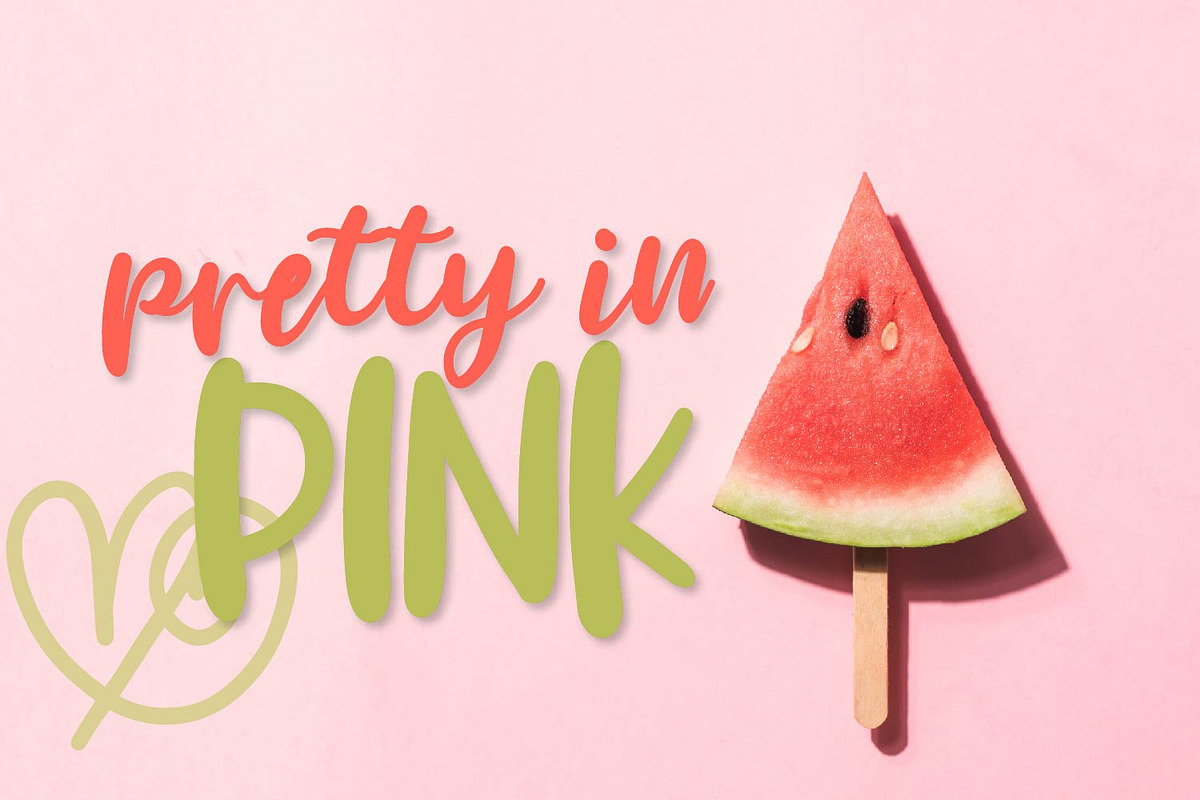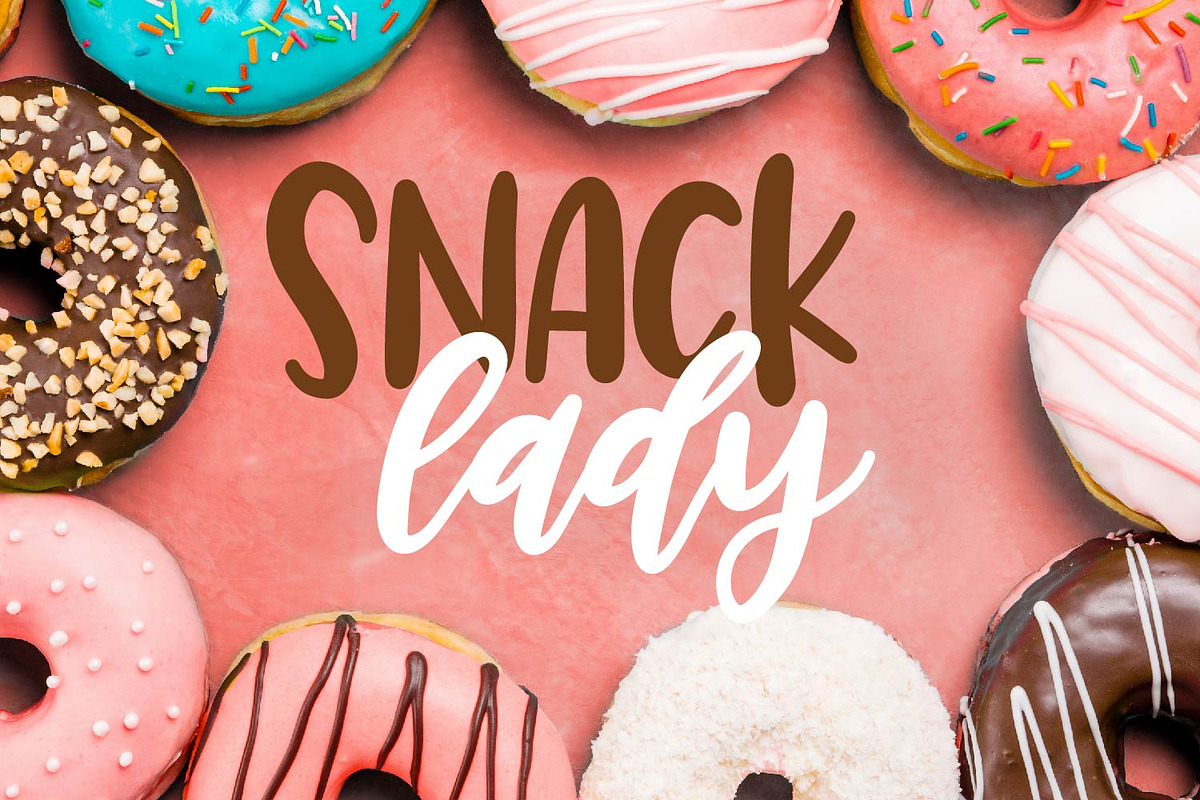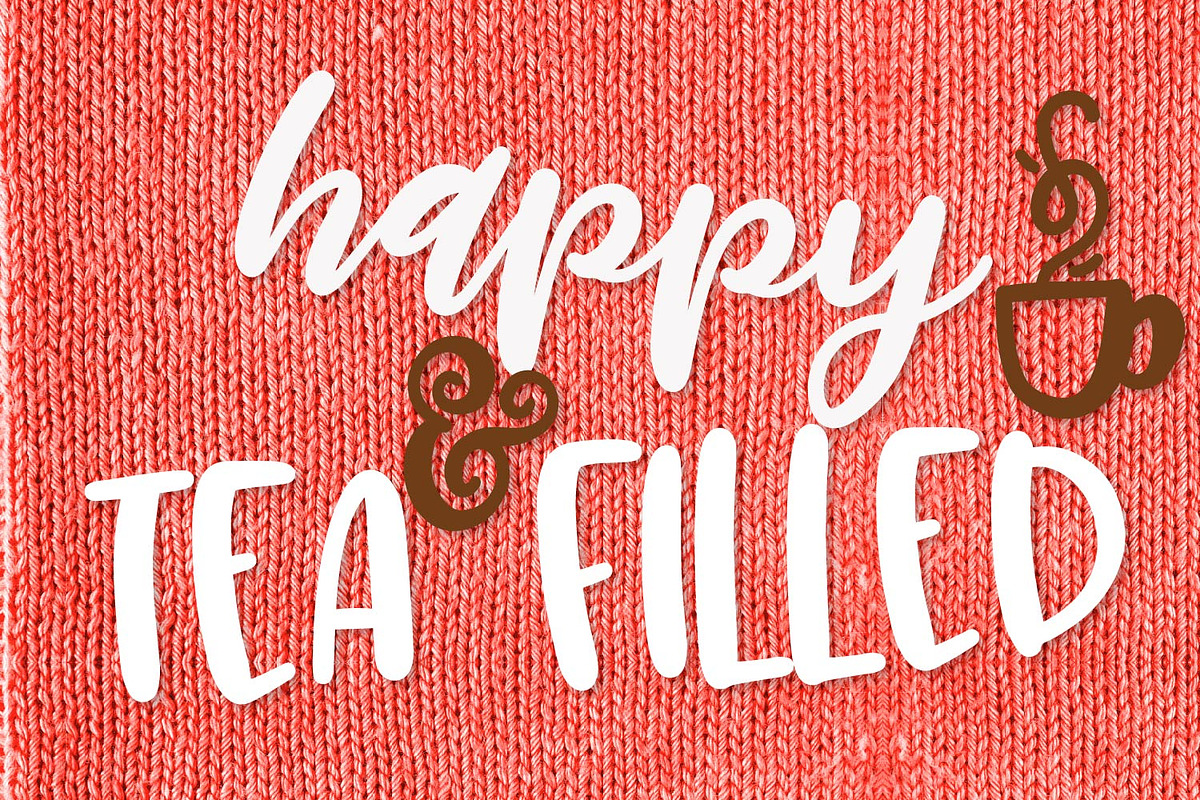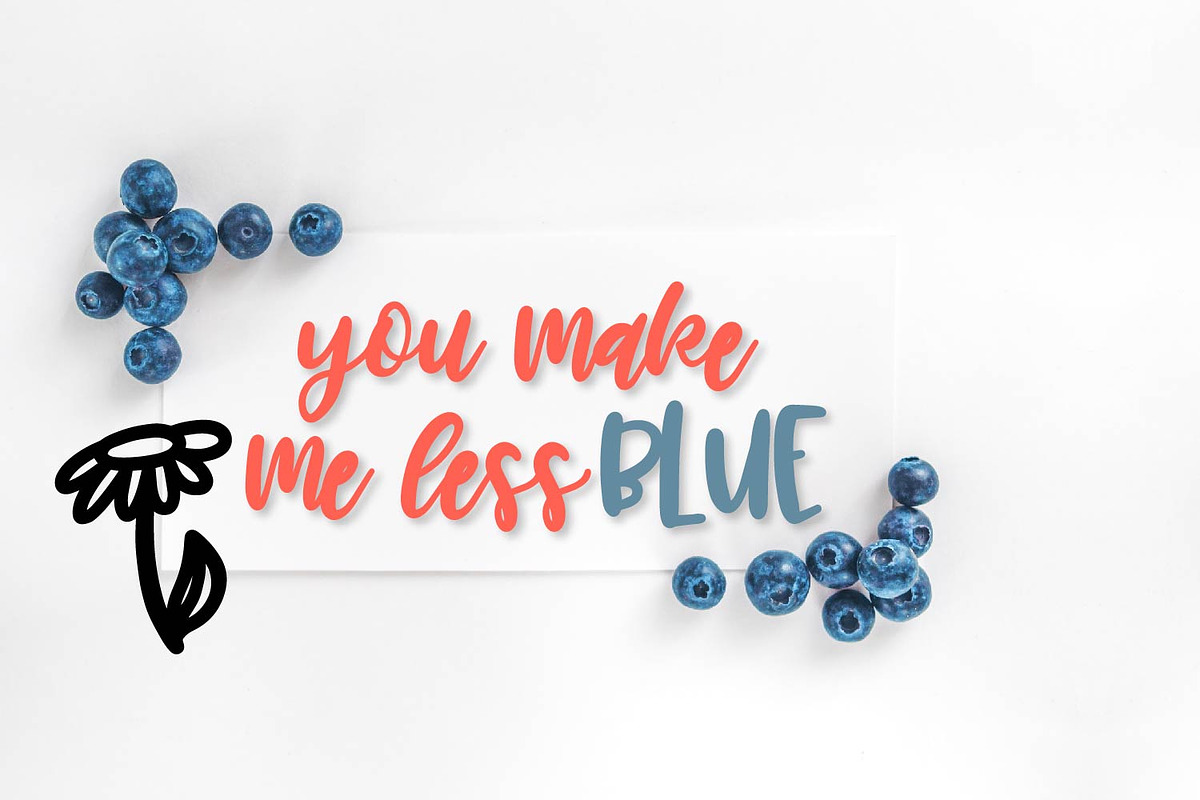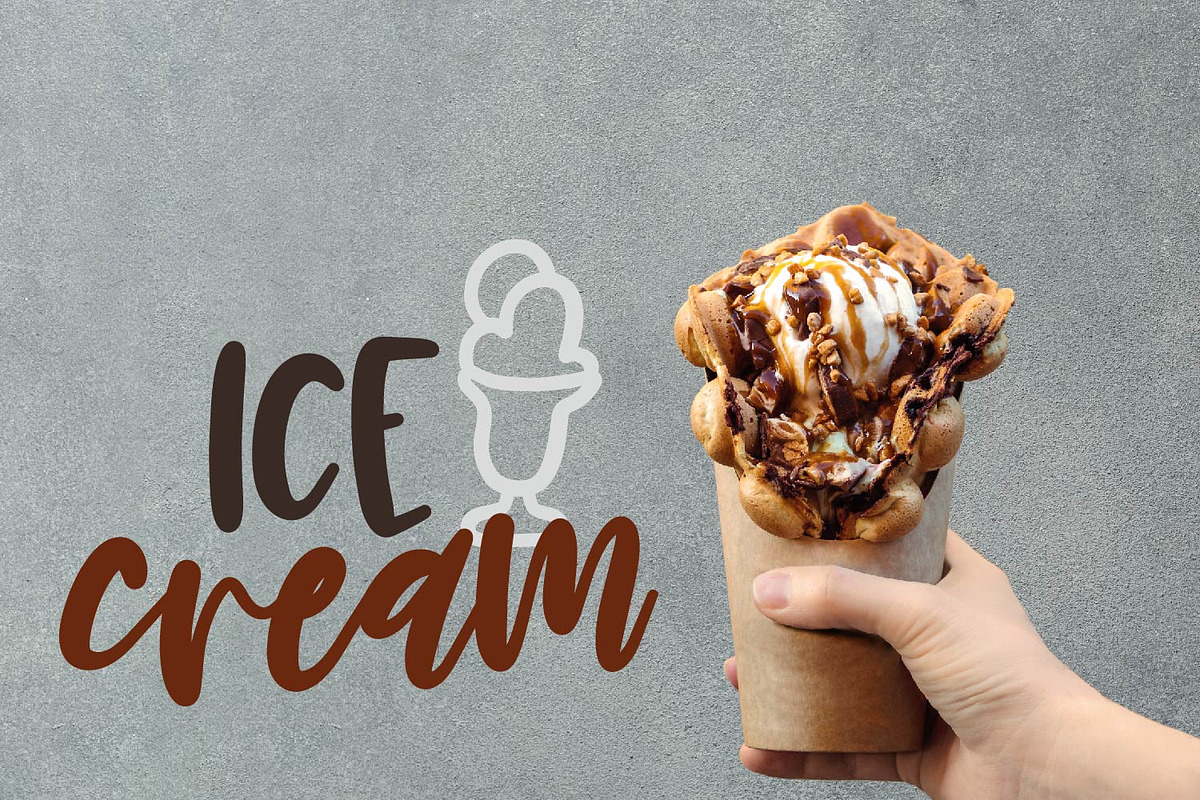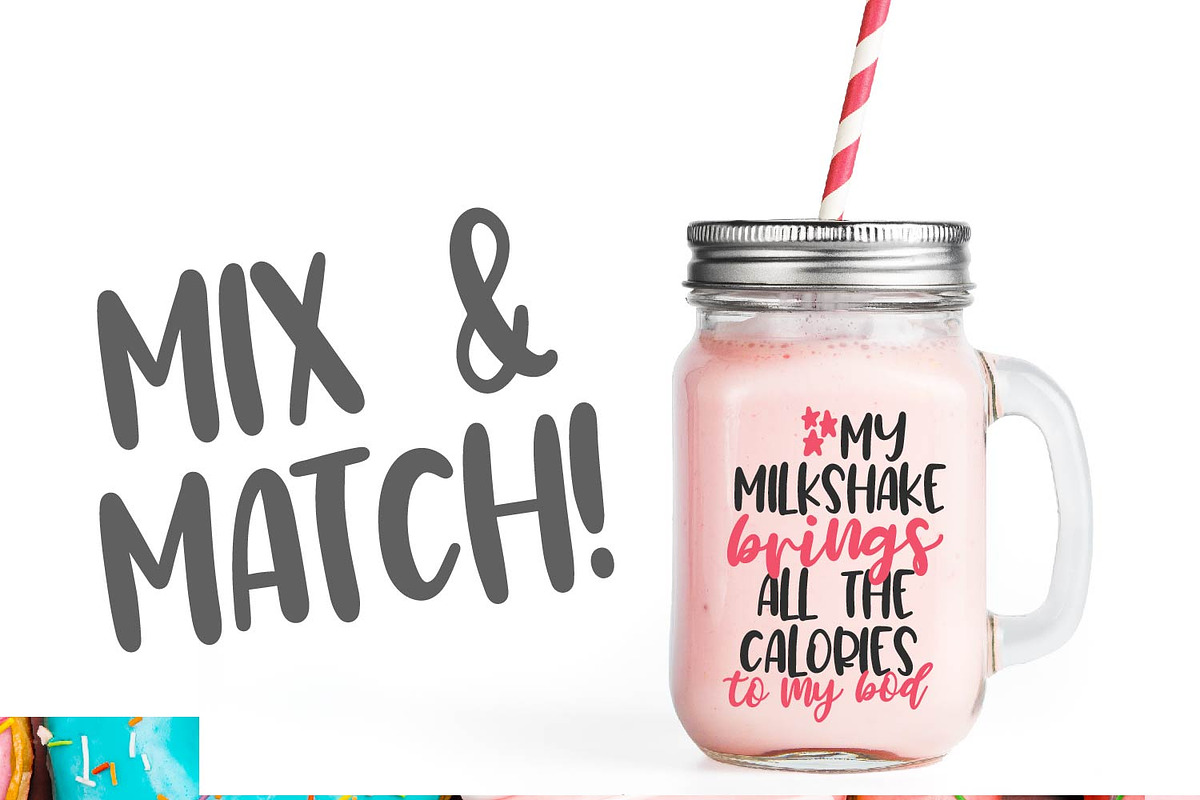
Fly Away Lady - A Font Trio
Fly Away Lady A Font Trio by CraftyLittleNodes is a font selected for branding, posters, packaging, typography.
Why Fly Away Lady - A Font Trio is worth a look
Fly Away Lady - A Font Trio by CraftyLittleNodes fits naturally into Branding, posters, packaging, typography.